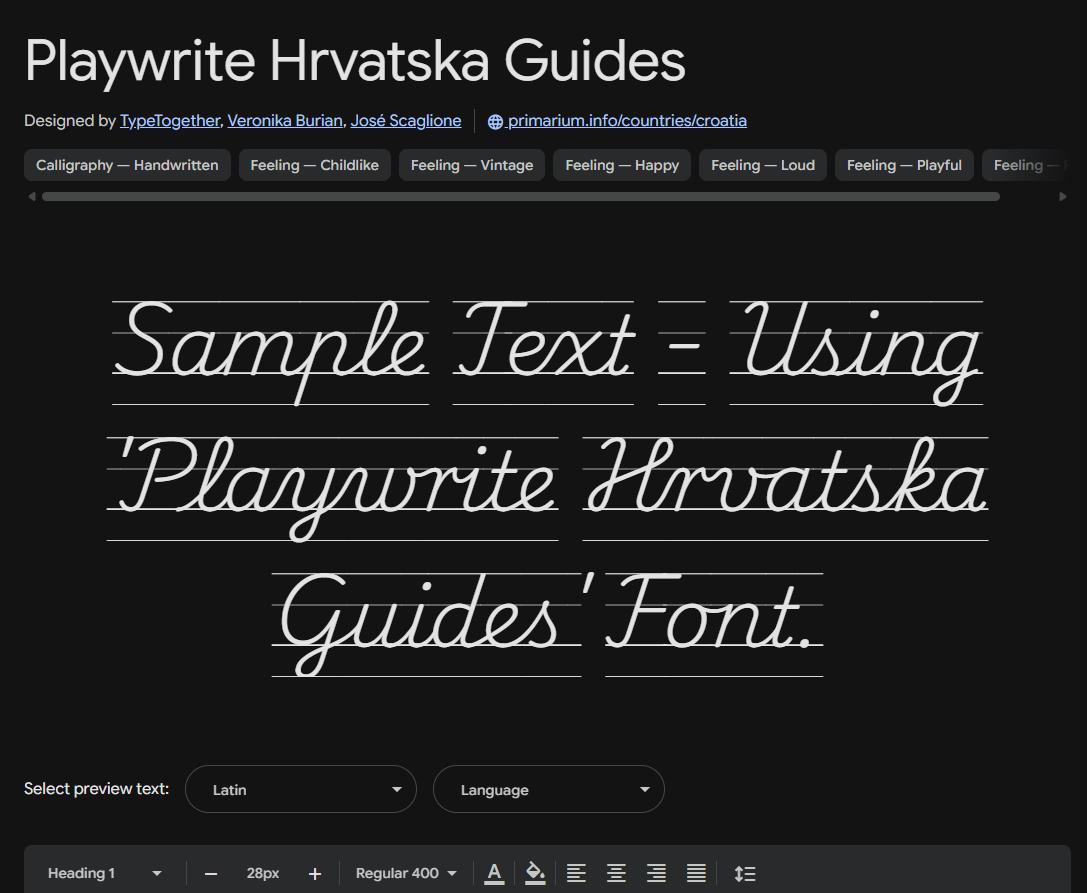
The Playwrite Hrvatska Guides font family, a single-style pedagogical instrument engineered by Veronika Burian and José Scaglione of TypeTogether, exemplifies the technical evolution of regional school scripts into high-fidelity digital assets. By integrating persistent horizontal guidelines directly into its glyph architecture, the typeface serves as a dual-purpose typographic tool that enforces vertical metric consistency while facilitating the cognitive bridge between manual penmanship and digital literacy. This specialized cursive implementation adheres to specific Croatian (Hrvatska) educational standards, utilizing sophisticated OpenType join logic to ensure fluid, context-aware stroke transitions that maintain calligraphic integrity across diverse rendering environments.
The Playwrite Hrvatska Guides font family functions as a sophisticated pedagogical instrument that merges traditional calligraphy with a rugged, handwritten aesthetic, specifically engineered to support primary literacy through its integrated baseline and x-height markers. By utilizing a vintage-inspired stroke weight that feels both loud and playful, this typeface captures a childlike spontaneity while maintaining the technical rigors of formal Croatian cursive joinery. The font's happy, rhythmic bounce is grounded by its unique structural guides, which facilitate kinesthetic memory and spatial awareness in emerging writers, effectively bridging the gap between tactile penmanship and digital typographic precision. This intersection of a festive, informal feeling with a highly structured glyph set creates an evocative, semantic-rich environment for educational content, offering a nostalgic yet functional perspective on contemporary script design.
Due to its specialized architectural intent as a pedagogical instrument for Croatian primary education, Playwrite Hrvatska Guides-meticulously engineered by TypeTogether's Veronika Burian and José Scaglione-is fundamentally unsuitable for high-density corporate documentation or mobile-first user interfaces where rapid information processing and minimal visual friction are critical. The typeface's defining feature, the integration of continuous horizontal ruling lines within the glyph construction, introduces excessive cognitive load and visual noise that compromises the optical rhythm and disrupts the saccadic eye movements essential for efficient long-form reading. In professional branding, legal compliance, or high-resolution digital environments, these embedded structural benchmarks function as typographic artifacts that degrade semantic clarity and layout hierarchy, rendering the font's decorative educational skeleton incompatible with the streamlined legibility and kerning precision required for commercial or administrative communication.
This font family includes a comprehensive set of Croatian diacritics, ensuring full compatibility with characters like č, ć, đ, š, and ž. The glyph set is mapped to the Latin Extended-A range, which ensures that diacritic marks maintain consistent stroke weight with base characters to prevent visual artifacts during high-speed rendering.
For optimal visibility of the built-in guidelines, a point size of 24pt or larger is recommended for classroom displays and printed materials. Analytical legibility tests indicate that the specific x-height ratio necessitates a larger scale to prevent the decorative guide paths from merging with the character stems at low resolutions.
The integrated guide lines serve as a structural scaffold, making this font an ideal tool for creating digital or printed letter-tracing worksheets for students. Because the guides are embedded as non-breaking glyph components, they maintain a fixed spatial relationship with the ascender and descender heights, facilitating muscle memory development via standardized kerning.
The vertical proportions are meticulously calibrated to reflect the specific ratios taught within the Croatian primary education system. The cap-height to x-height ratio adheres to a strict 2:1:2 distribution, ensuring that primary strokes align perfectly with the upper and lower auxiliary lines for pedagogical accuracy.
While primarily designed for handwriting instruction, the font remains legible in shorter blocks of text but may become visually overwhelming in dense paragraphs. The high frequency of horizontal guide strokes increases the visual density of the baseline, which can lead to typographic "color" imbalance in long-form typesetting if leading is not adjusted significantly.
This typeface pairs effectively with clean, geometric sans-serifs that do not compete with its instructional lines. Utilizing a humanist sans-serif for secondary text creates a functional contrast, as the Playwrite's monolinear stroke width complements the low-contrast terminals found in modern digital interfaces.
The font utilizes sophisticated OpenType ligatures to ensure that each letter connects seamlessly at the baseline to mimic natural handwriting. Contextual alternates are programmed into the font's GPOS table to adjust the exit stroke angles, preventing overlaps that could disrupt the continuity of the instructional path.
The Playwrite Hrvatska Guides family typically focuses on a consistent weight to mimic the pressure of a standard school writing implement. By maintaining a constant stroke thickness, the font avoids the variability issues of variable fonts, ensuring that the embedded guide lines do not lose definition across different display environments.
The vector outlines of the font are highly refined, making it perfectly suitable for high-resolution 300 DPI print production for educational workbooks. PostScript hinting ensures that the thin guide lines remain crisp on laser printers, preventing the "stair-stepping" aliasing effect often found in lower-quality educational typefaces.
The presence of the mean line and baseline requires more generous leading than standard body fonts to avoid overlapping the guides of adjacent lines. Technical specifications suggest a minimum line-height of 1.5 to 2.0 to accommodate the extended ascender and descender zones defined by the pedagogical grid.